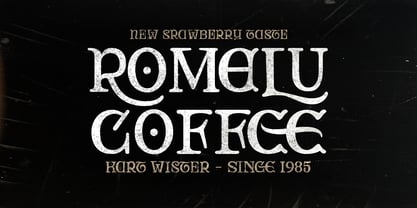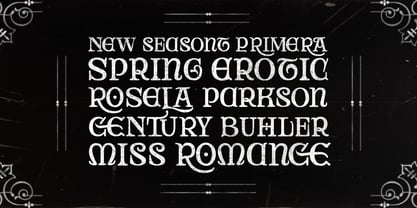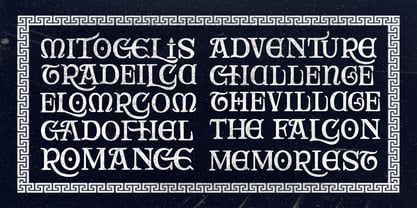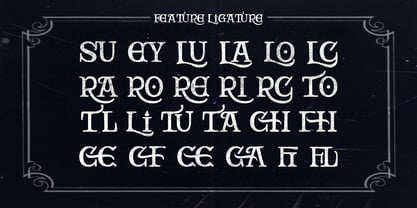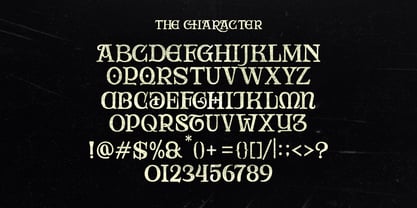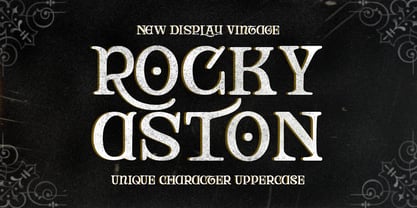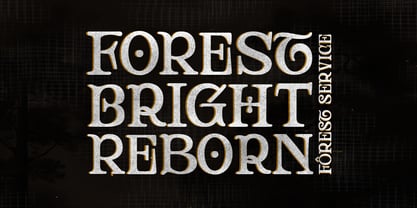
Rocky Aston
by Fontastic Lab
The Rocky Aston Font Family was designed by Bebby Lutfitharina and published by Fontastic Lab. Rocky Aston contains 1 styles.
Rocky Aston is a vintage typeface, appearing in a clean and letterpress style, organized and original with additional ligatures and symbols.
Rocky Aston is great for all kinds of display purposes from branding, emblems, advertising, t-shirts, etc, you name it.